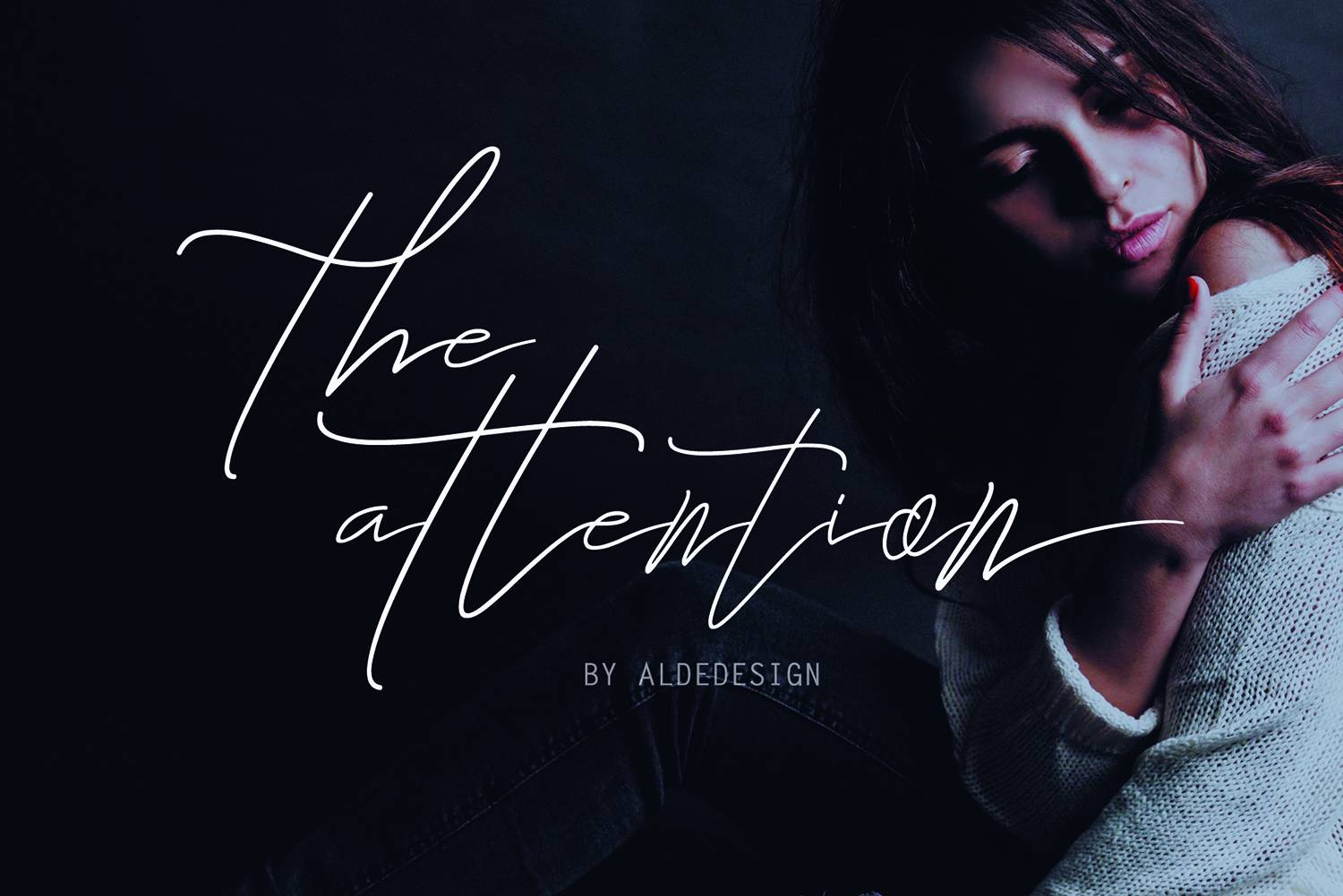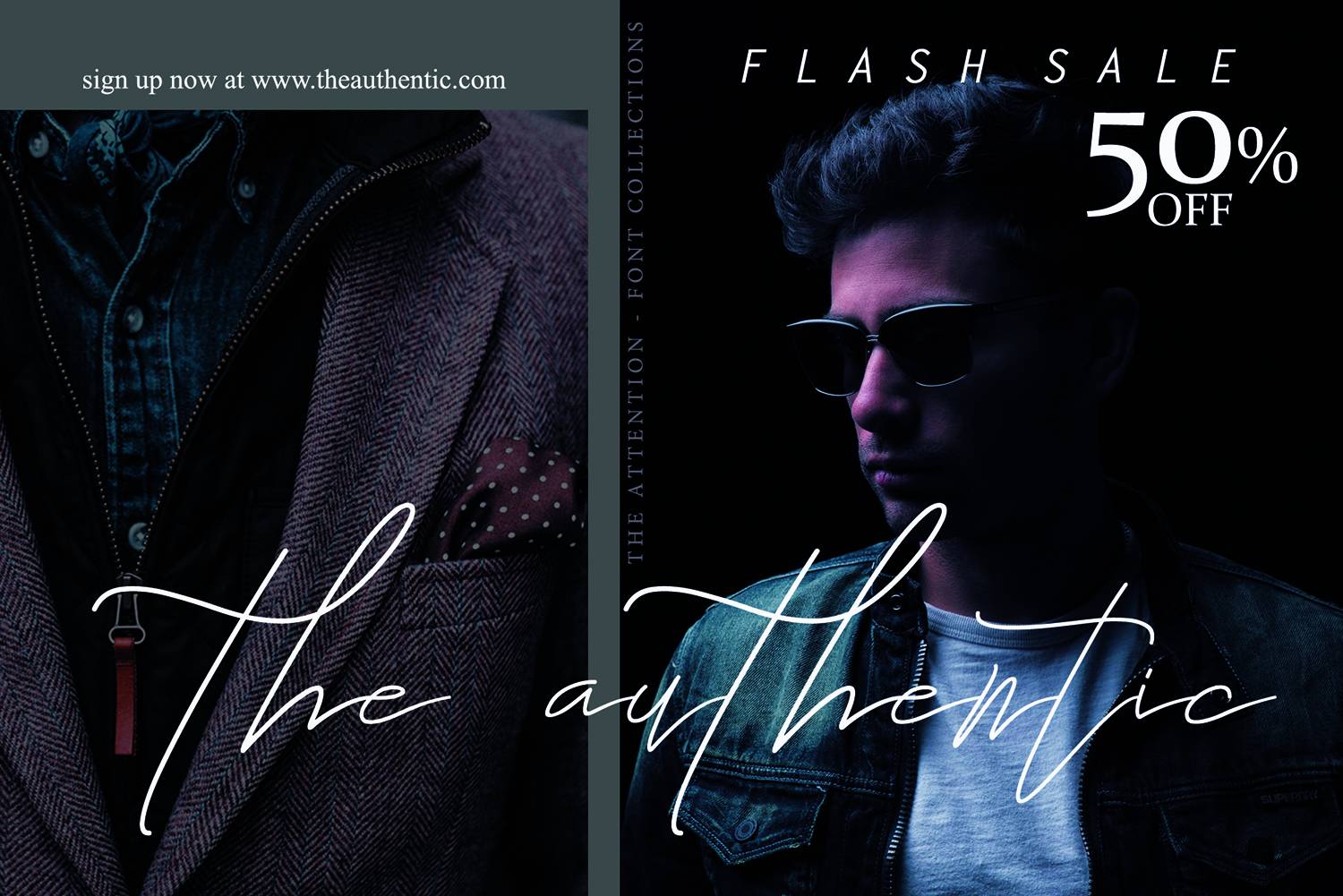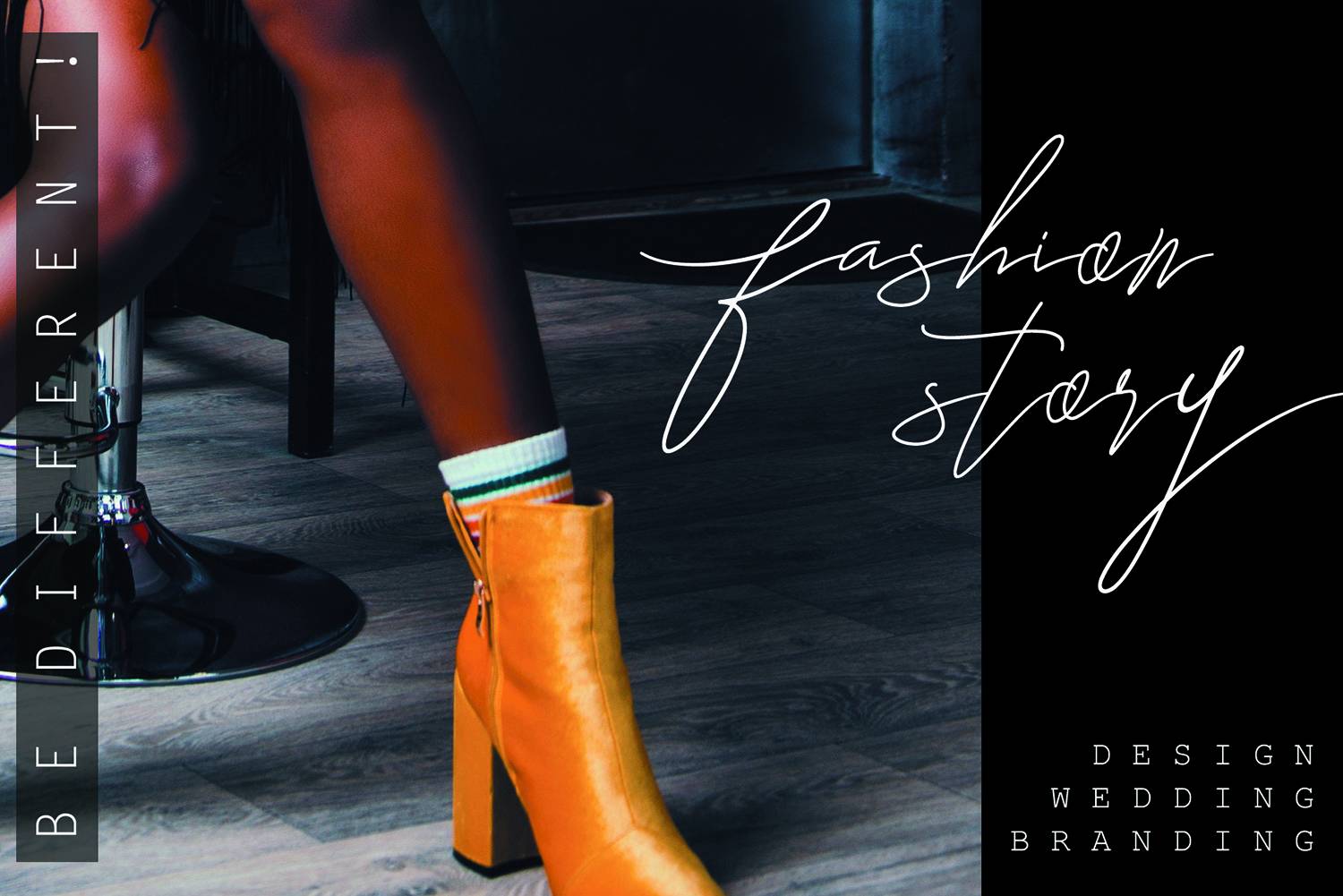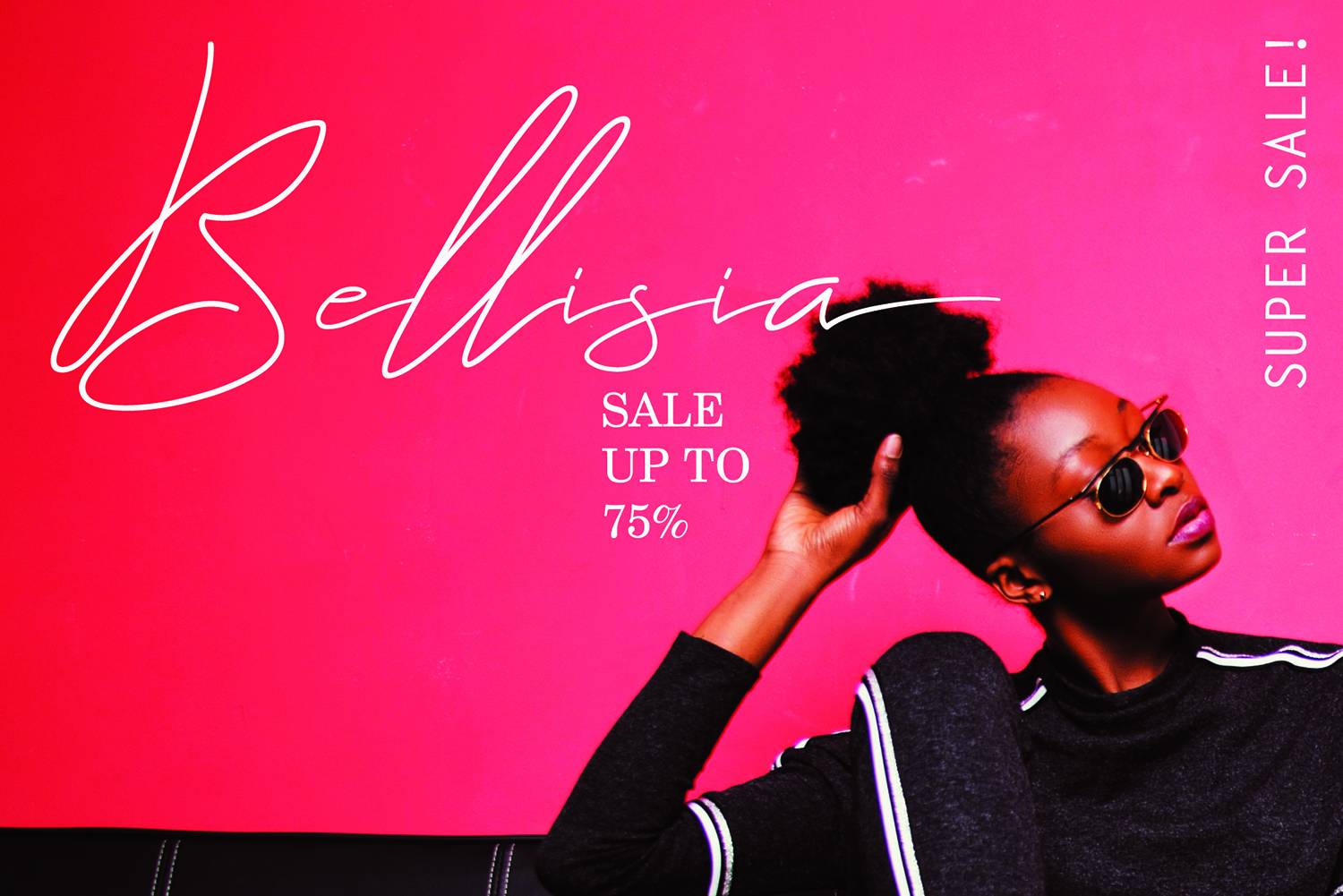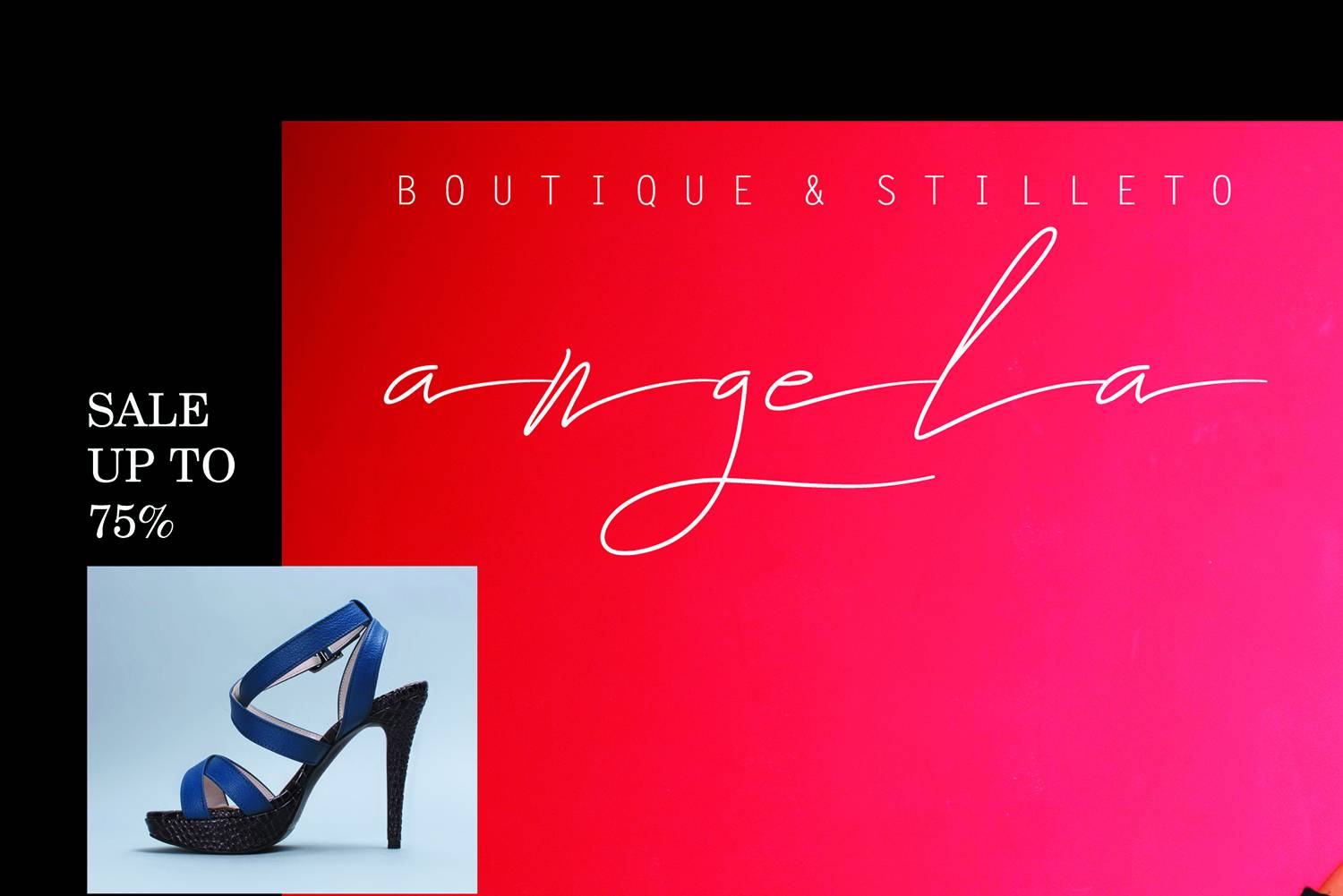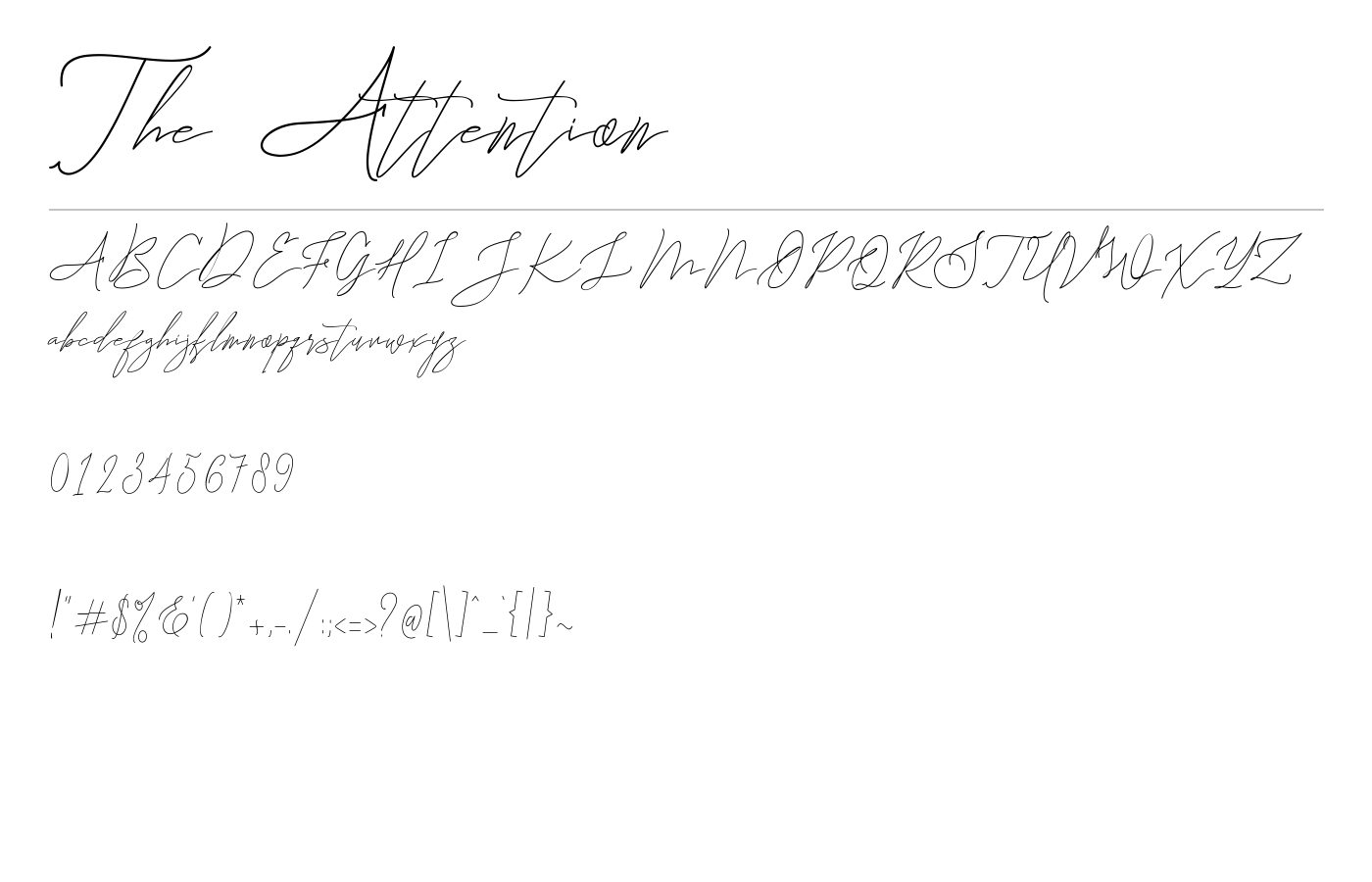
The Attention Font is a delicate, elegant script typeface featuring fine, flowing strokes that evoke a handwritten, artistic feel. Its slender letterforms with graceful curves and light weight make it perfect for sophisticated branding, invitations, and any design that seeks a personal and refined touch. This font works best in display settings where its intricate details can stand out and add a sense of elegance and charm.
The Attention Font
About The Attention Font
| Font family | The Attention Font |
| Designer | Aldedesign 2018 |